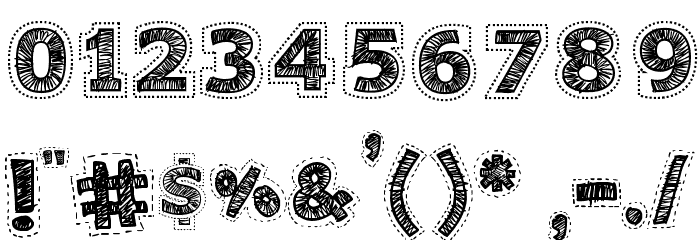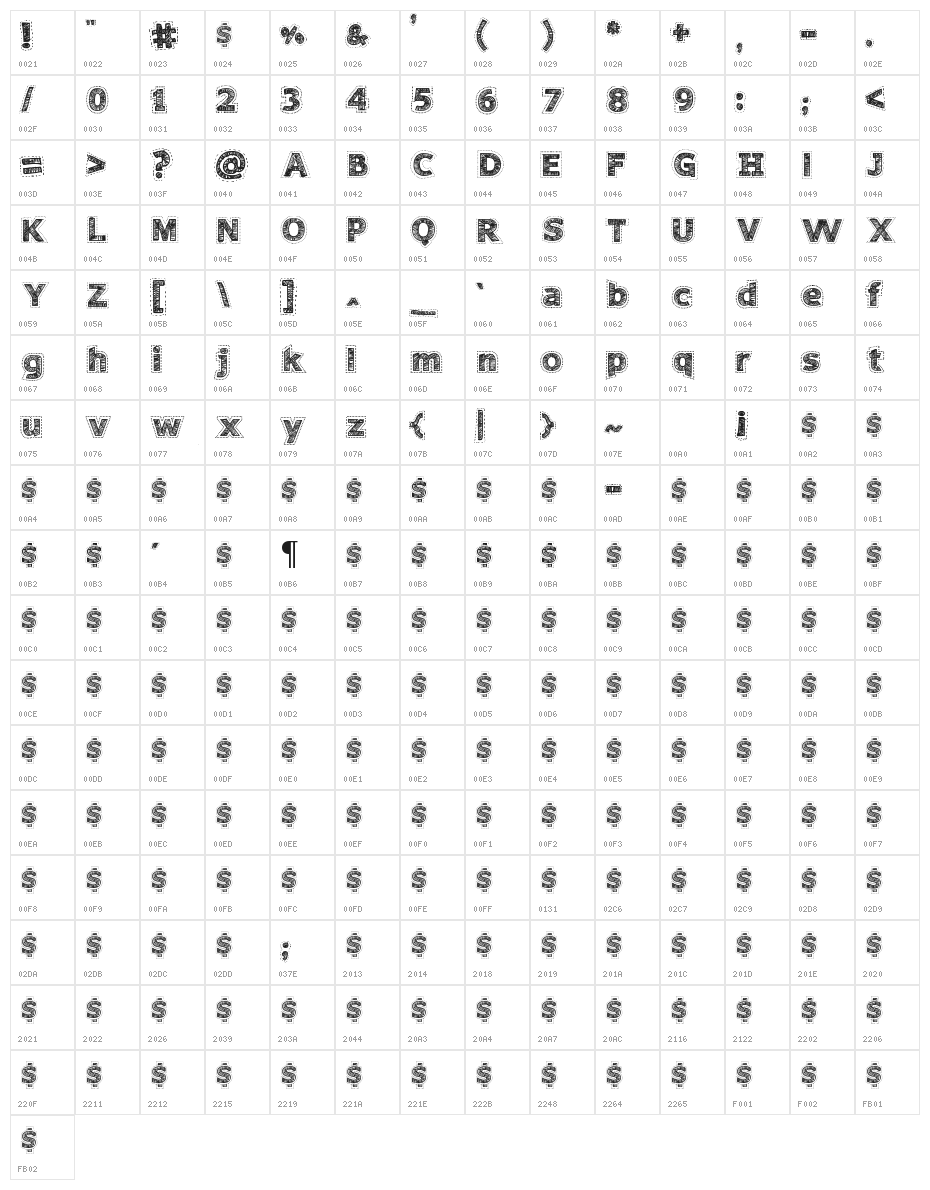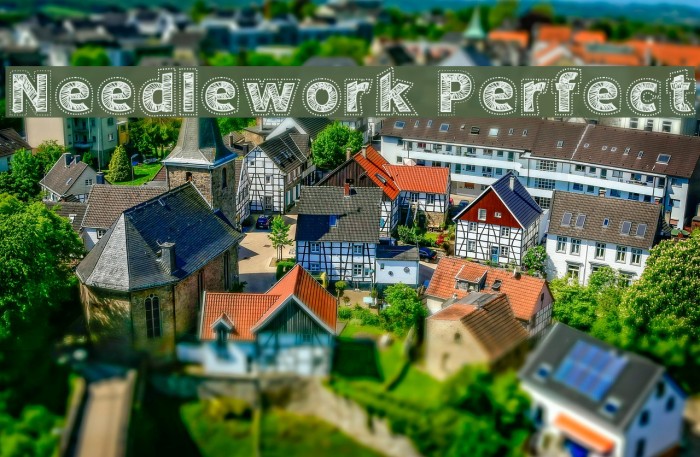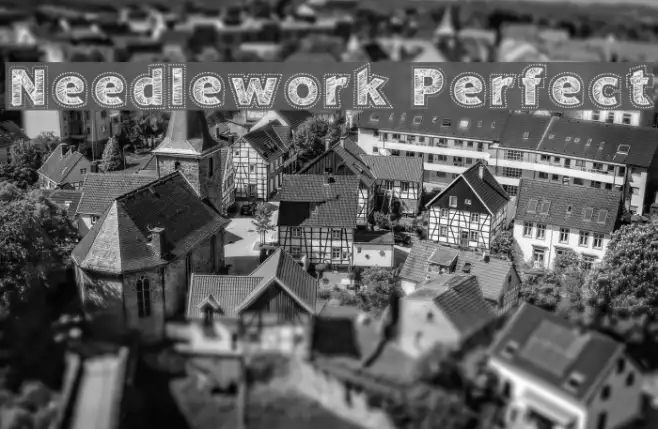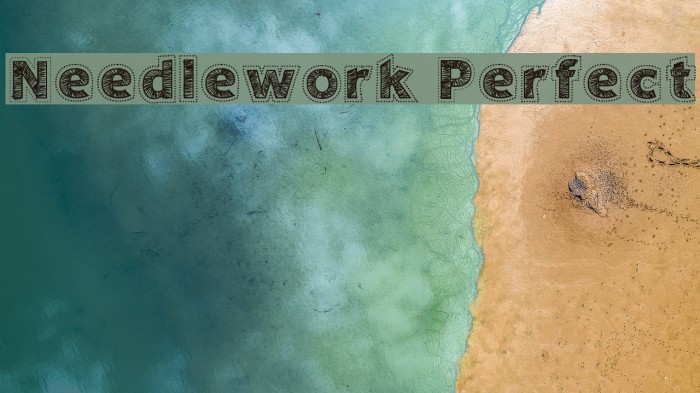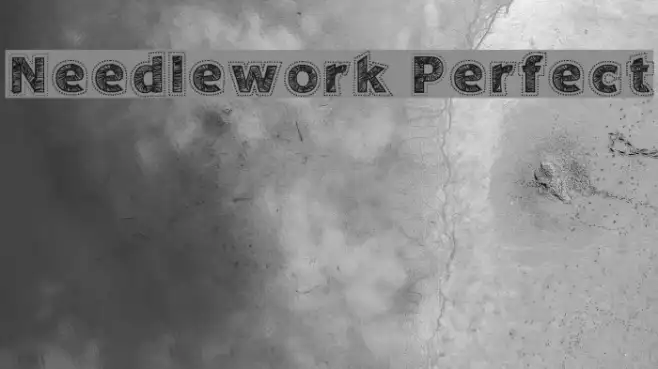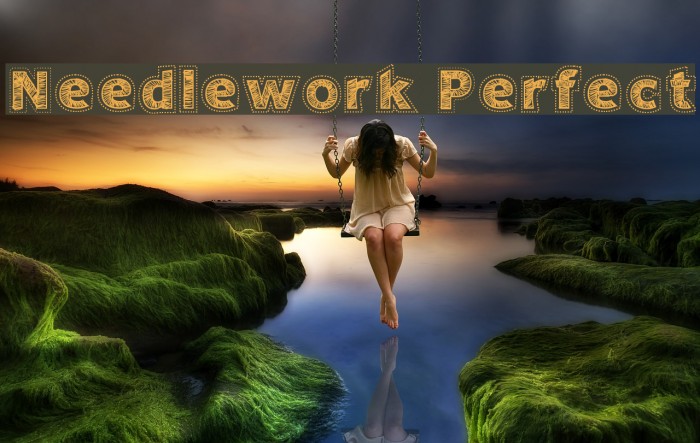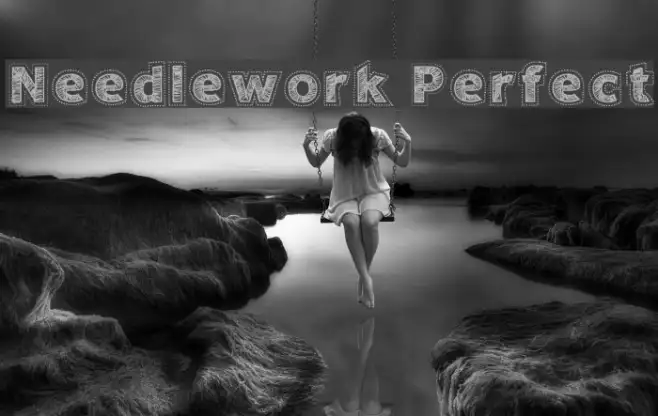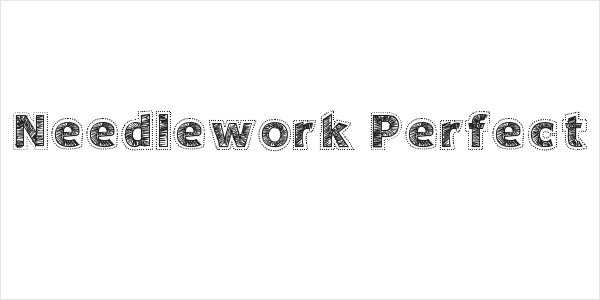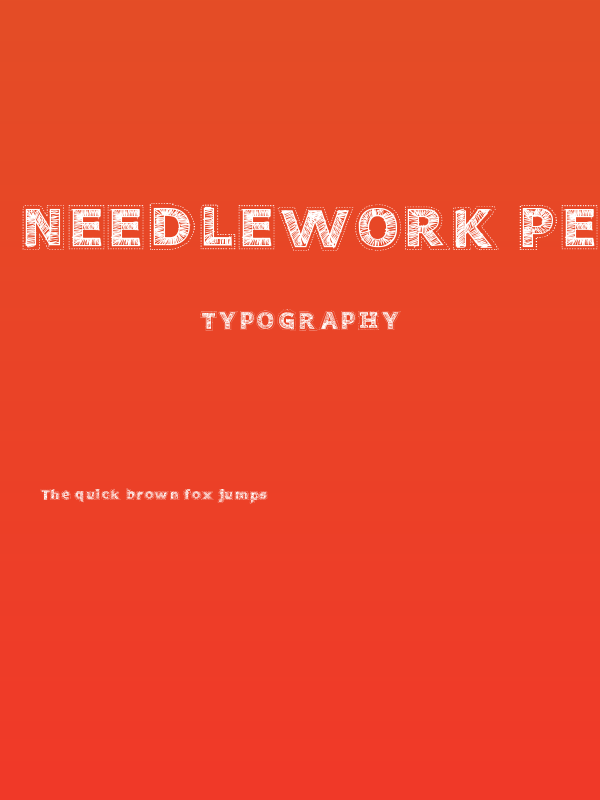
Needlework Perfect Font
Needlework Perfect Description
This font features a unique, decorative style that mimics the appearance of needlework or embroidery. Each character is outlined with a dotted pattern, giving it a textured and handcrafted look. The letters are bold and have a playful, whimsical feel, making them stand out in any design. The intricate detailing within each character adds depth and visual interest, making it ideal for creative projects that require a touch of artistry. The font includes a full set of uppercase and lowercase letters, numbers, and a variety of special characters, all maintaining the same stitched aesthetic.
| Proposed Projects | Ideal for crafting projects, DIY invitations, children's book covers, and playful branding materials. |